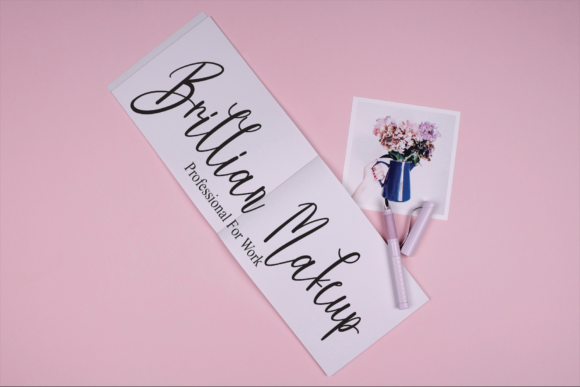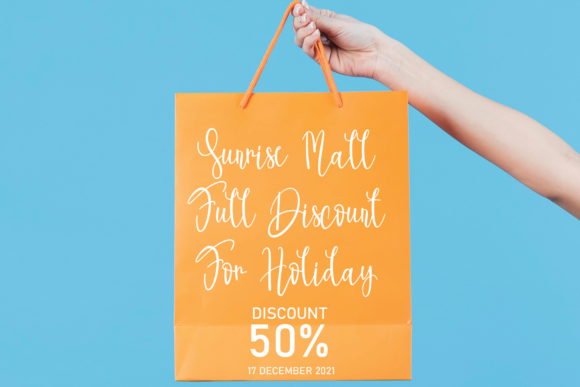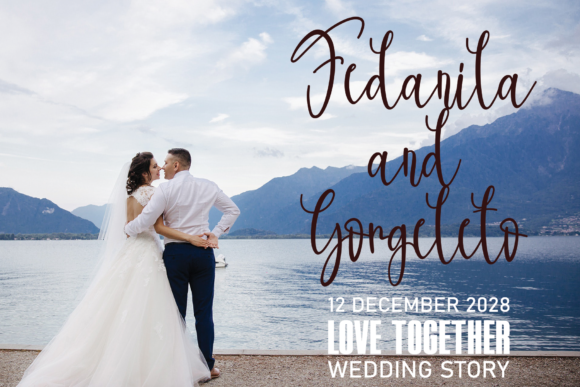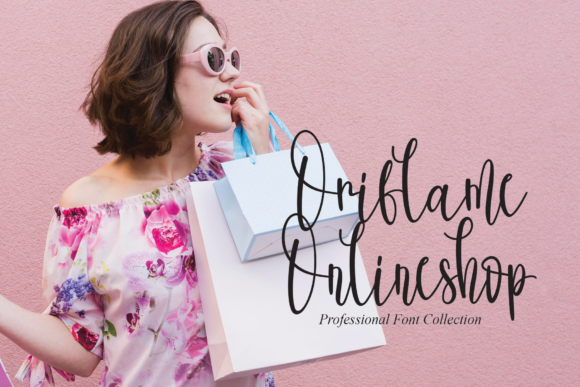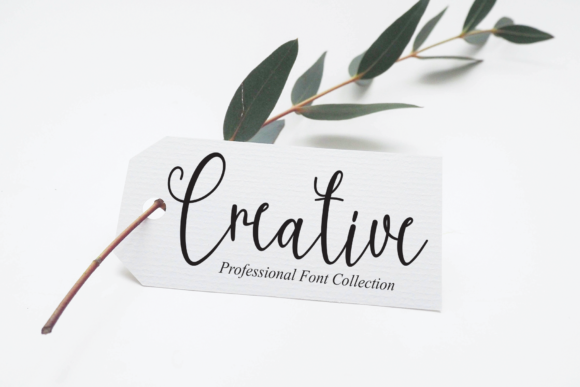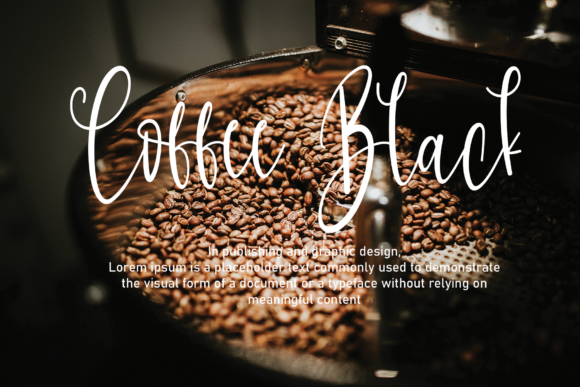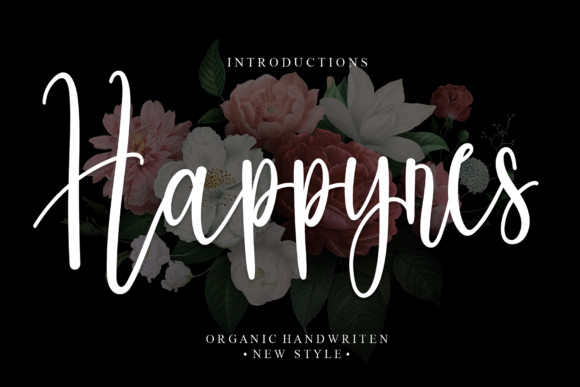
Introducing Happynes Font: The Epitome of Elegance and Sophistication
In the world of typography, few fonts have managed to capture the essence of elegance and sophistication as effortlessly as Happynes Font. This stunning script font is characterized by its thin letters and graceful strokes, making it an ideal choice for designers and crafters looking to add a touch of luxury to their creations. In this article, we’ll delve into the world of Happynes Font, exploring its features, uses, and benefits, as well as provide tips on how to make the most of this beautiful font.
The Features of Happynes Font
Happynes Font is a thin lettered and graceful script font that exudes refinement and poise. Its delicate strokes and elegant letterforms make it perfect for creating sophisticated and eye-catching designs. Here are some of the key features that set Happynes Font apart:
- Thin letters: Happynes Font features thin letters that are both elegant and refined, making it perfect for creating designs that require a touch of sophistication.
- Graceful strokes: The font’s strokes are smooth and flowing, giving it a beautiful and artistic feel.
- Script style: Happynes Font is a script font that is perfect for creating flowing and connected text, making it ideal for designs that require a personal touch.
Uses of Happynes Font
Happynes Font is a versatile font that can be used in a variety of design projects, including:
- Wedding invitations: The font’s elegant and sophisticated style makes it perfect for creating beautiful and romantic wedding invitations.
- Stationery art: Happynes Font is ideal for creating stunning stationery art, including greeting cards, thank-you cards, and more.
- Social media posts: The font’s eye-catching style makes it perfect for creating social media posts that are sure to grab attention.
- Branding and packaging: Happynes Font can also be used in branding and packaging designs, adding a touch of elegance and sophistication to any product.
Benefits of Using Happynes Font
There are many benefits to using Happynes Font in your designs, including:
- Unique and distinctive: Happynes Font is a unique and distinctive font that will set your designs apart from the rest.
- Elegant and sophisticated: The font’s elegant and sophisticated style makes it perfect for creating designs that require a touch of luxury.
- Versatile: Happynes Font is a versatile font that can be used in a variety of design projects, from wedding invitations to social media posts.
- Easy to read: Despite its thin letters, Happynes Font is easy to read, making it perfect for designs that require a clear and concise message.
In conclusion, Happynes Font is a stunning script font that is perfect for designers and crafters looking to add a touch of elegance and sophistication to their creations. With its thin letters, graceful strokes, and versatile style, Happynes Font is ideal for creating beautiful wedding invitations, stunning stationery art, eye-catching social media posts, and much more. Whether you’re a seasoned designer or a crafty DIY enthusiast, Happynes Font is sure to become a favorite in your design arsenal.